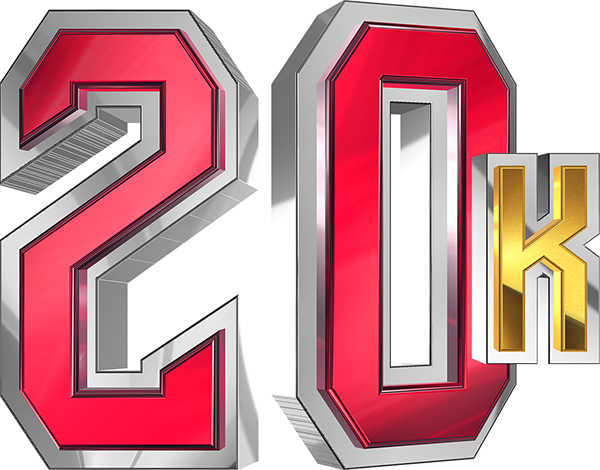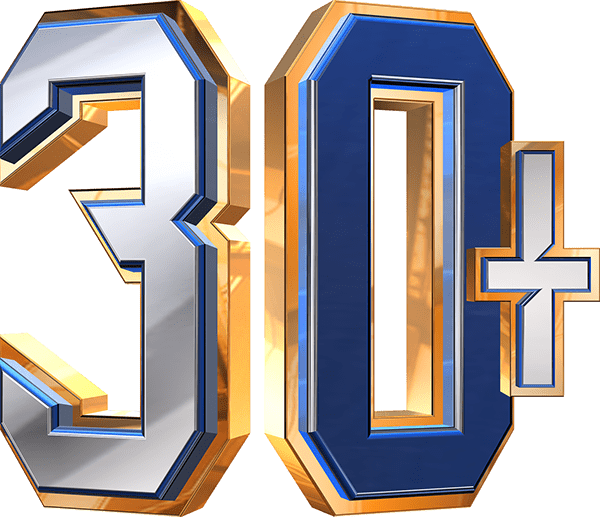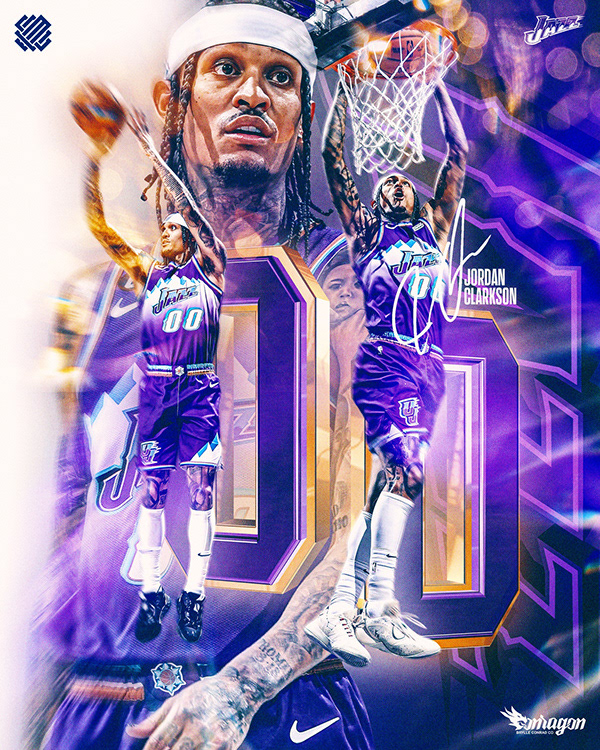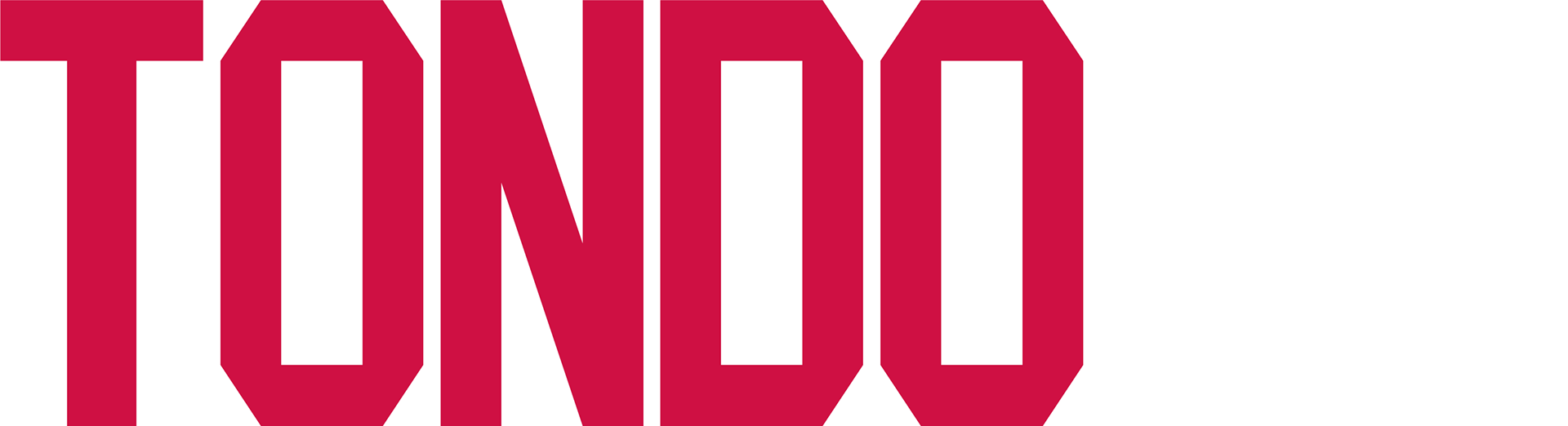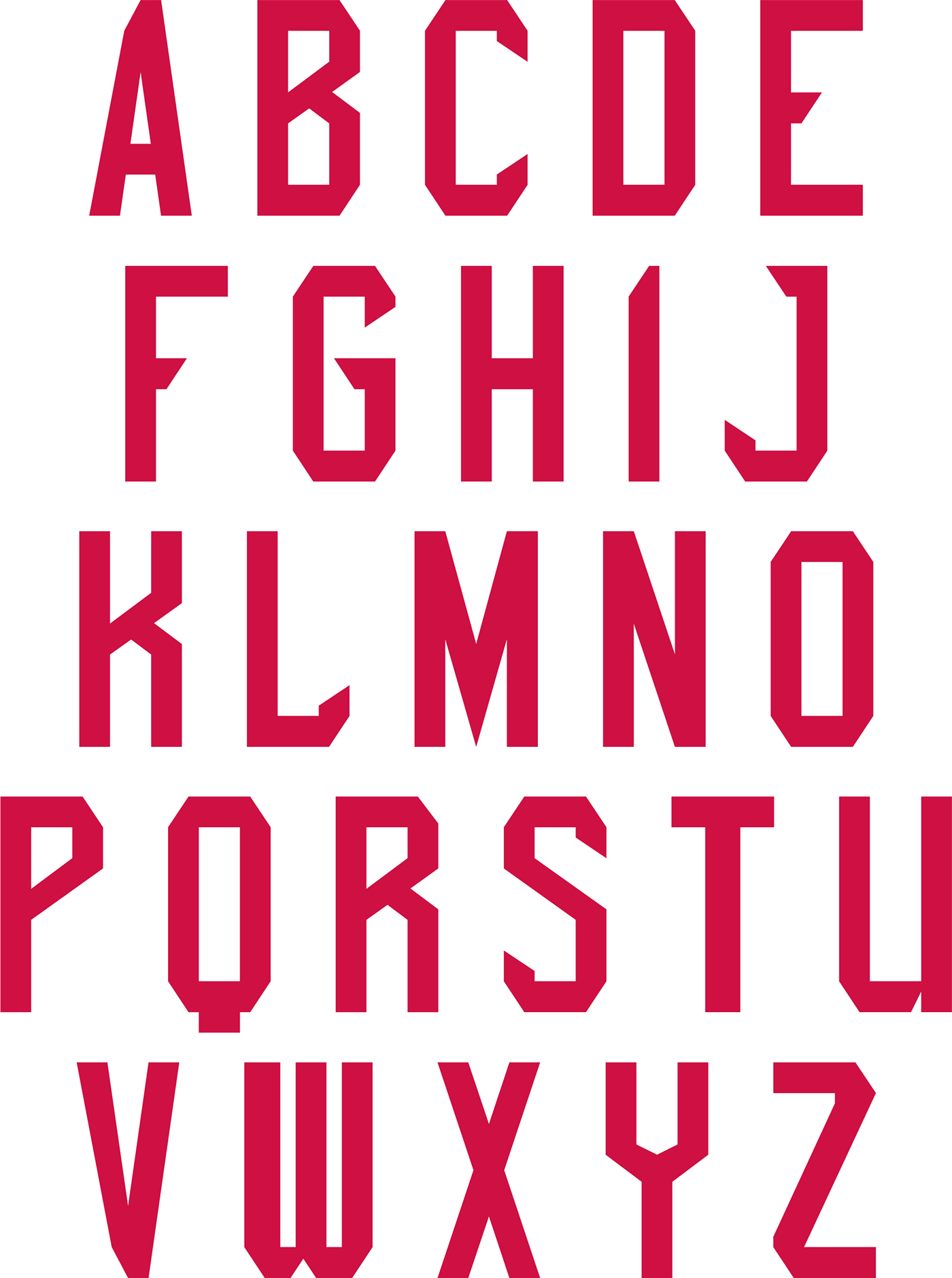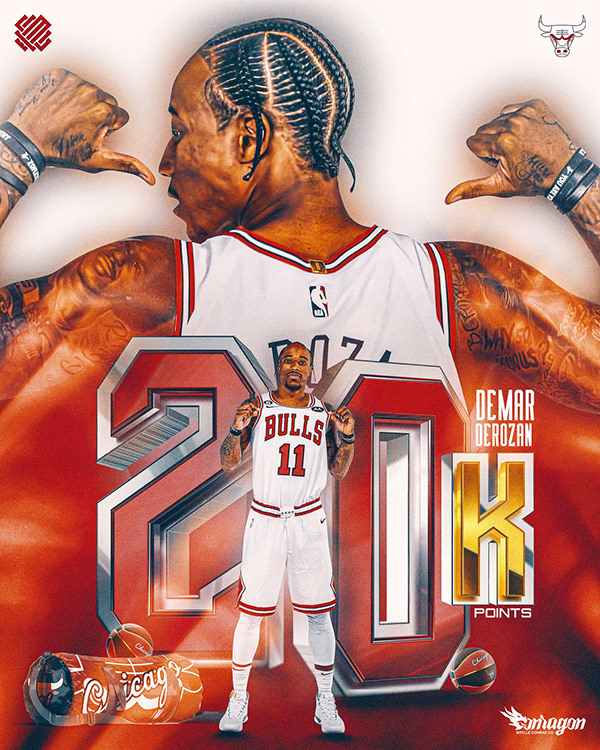
Introducing Tondo from Conragon Fonts, one of their favorites in the MNL series, with names based from places in Manila City, Philippines.
This tall blocky sans serif is perfect for athletic & sports related projects.